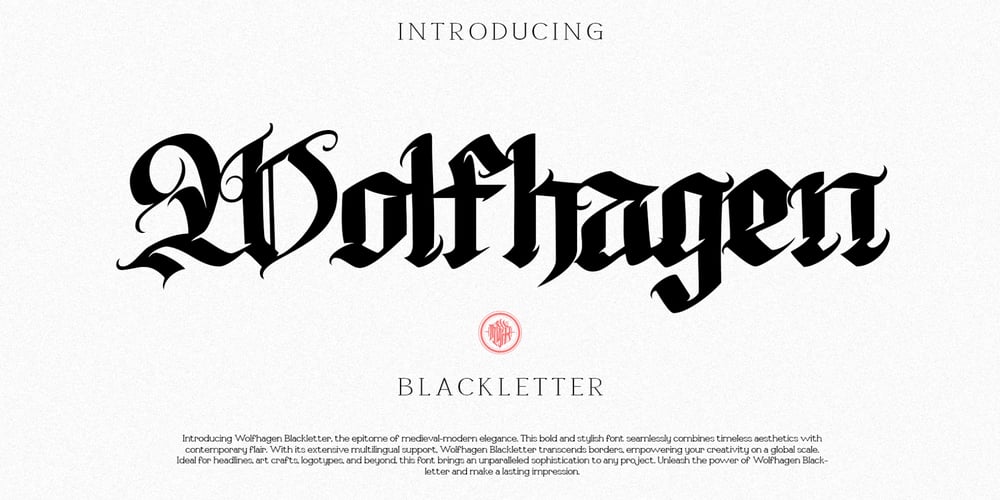
Wolfhagen Blackletter Font Family was designed by Mohamad Farhan Ramadhan and published by Mofr24. Wolfhagen Blackletter contains 1 styles and family package options. Introducing Wolfhagen Blackletter, an extraordinary font that embodies the perfect blend of medieval-modern elegance. With its strikingly bold and stylish appearance, this typeface effortlessly merges timeless aesthetics with contemporary flair. What sets Wolfhagen Blackletter apart is its ability to seamlessly transcend borders, thanks to its extensive multilingual support, empowering your creative endeavors on a global scale.This font is a true embodiment of sophistication, making it ideal for headlines, art crafts, logotypes, and beyond. Its unique charm and exquisite design concept bring an unparalleled allure to any project it graces. The intricate details and intricate strokes of Wolfhagen Blackletter capture the essence of medieval craftsmanship while infusing it with a modern twist, resulting in a truly captivating and versatile typeface.We created Wolfhagen Blackletter with a vision to offer designers a font that would stand out from the crowd and leave a lasting impression. The marriage of medieval inspiration with contemporary design was a deliberate choice, as we sought to evoke a sense of timeless elegance while meeting the demands of the modern creative landscape.Unleash the power of Wolfhagen Blackletter, and witness the transformation of your projects into works of art. This font embodies the harmonious convergence of past and present, enabling you to communicate your ideas with a touch of history and a dash of contemporary sophistication. Discover the uniqueness of Wolfhagen Blackletter and embark on a creative journey that is both captivating and unforgettable.